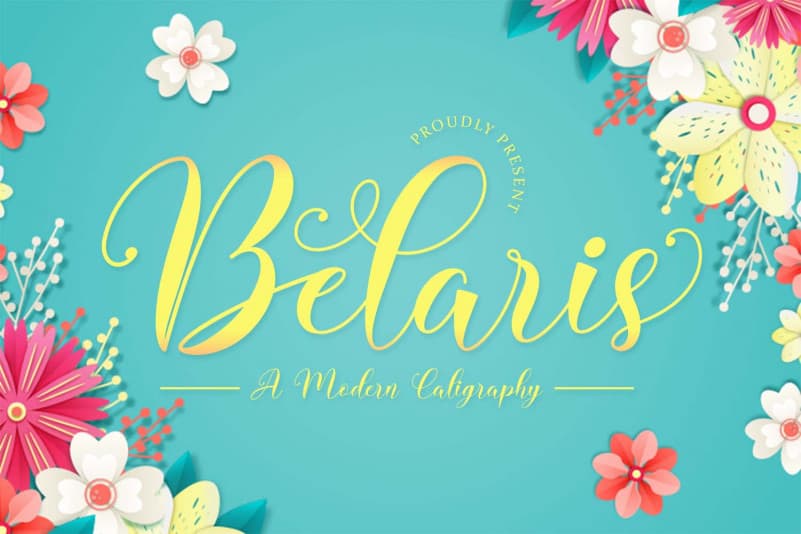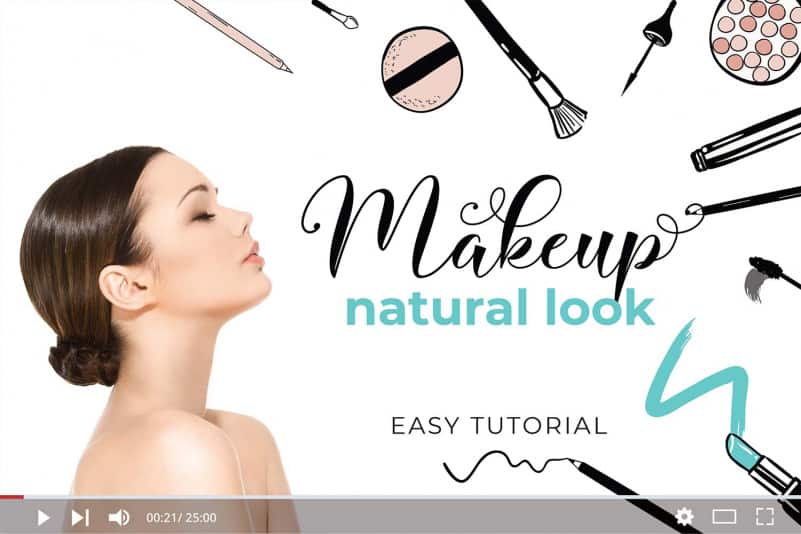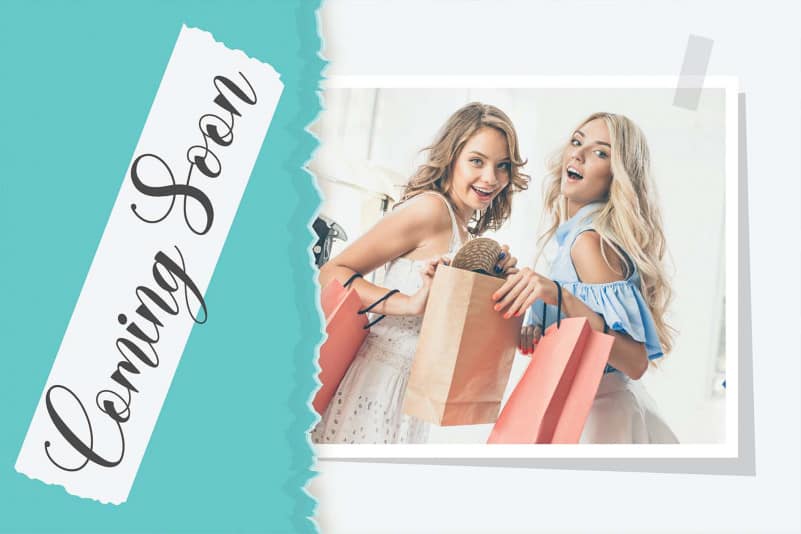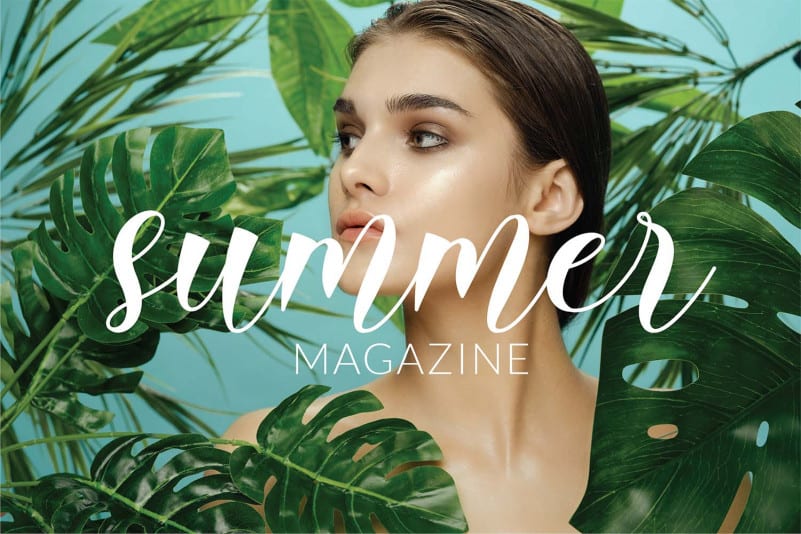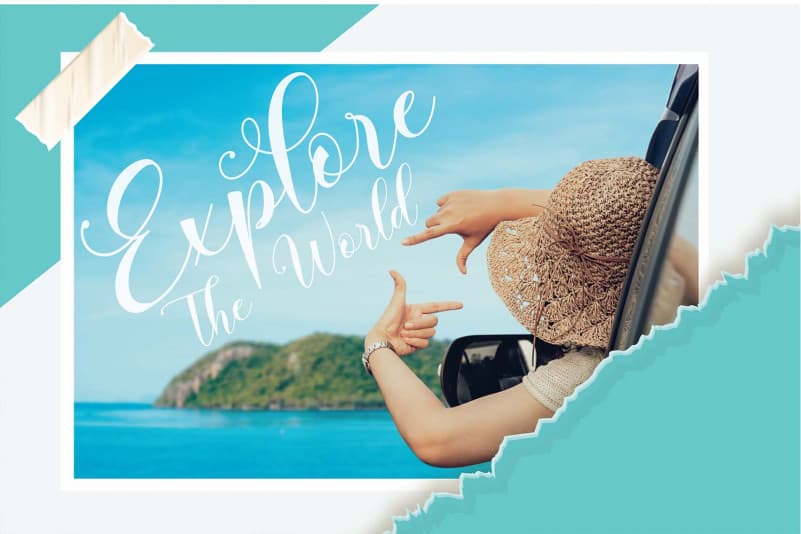
Belaris – Modern Calligraphy Font
Belaris – Modern Calligraphy Font is a modern calligraphy font, will be suitable for any projects such as branding projects, homeware designs, product packaging, mugs, quotes, posters, shopping bags, t-shirts, book covers, name card, invitation cards, greeting cards, label, photography, watermark, special events, and all your other lovely projects that need beautiful calligraphy taste.